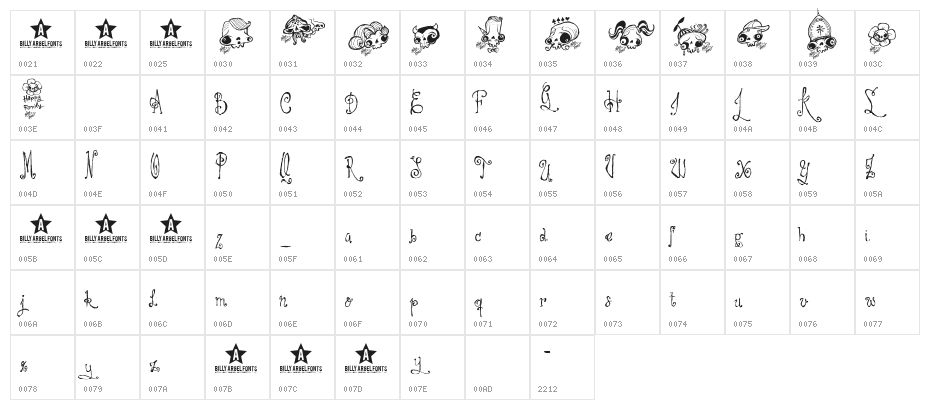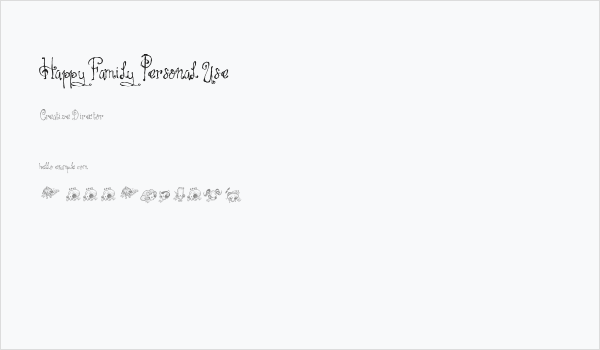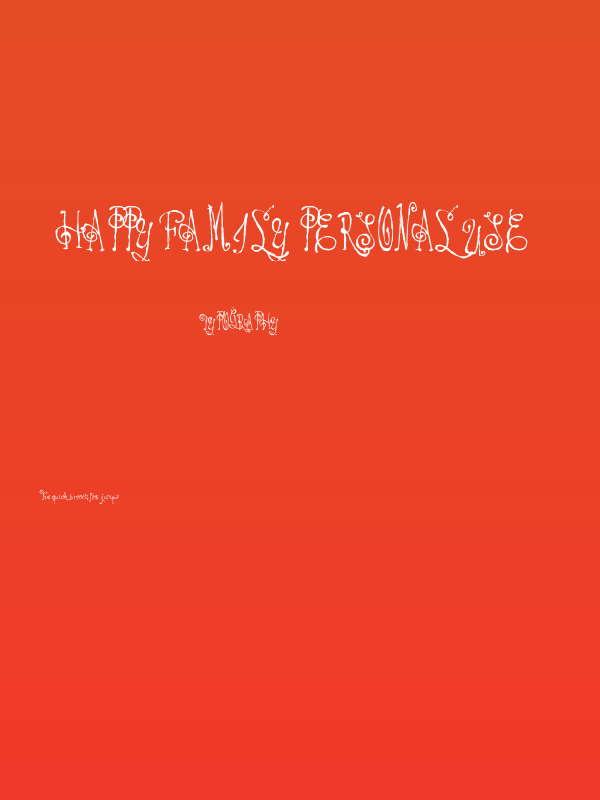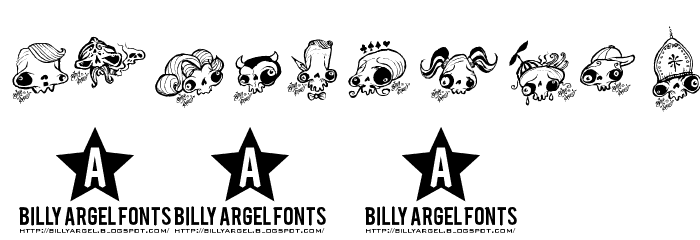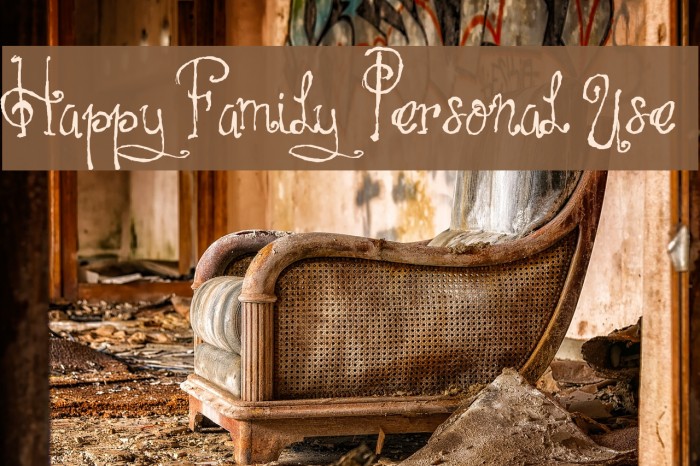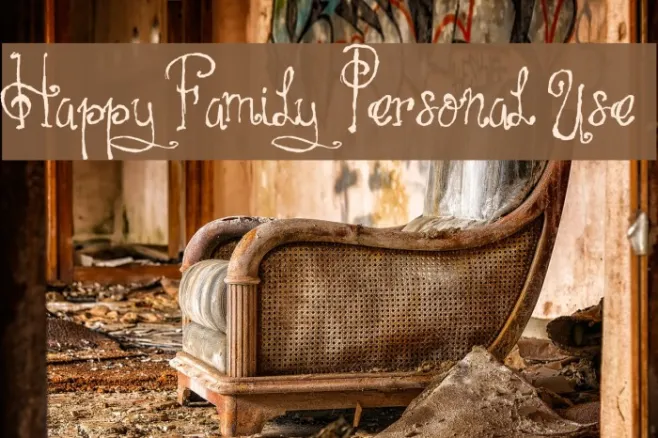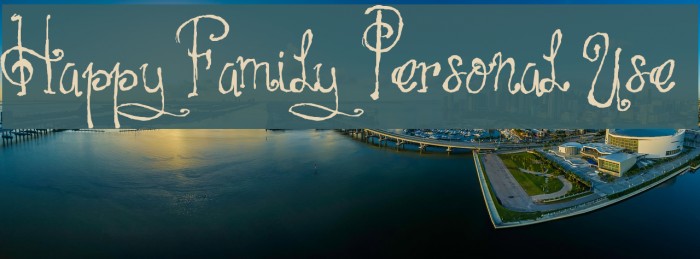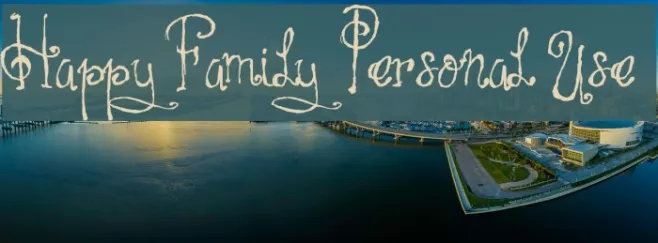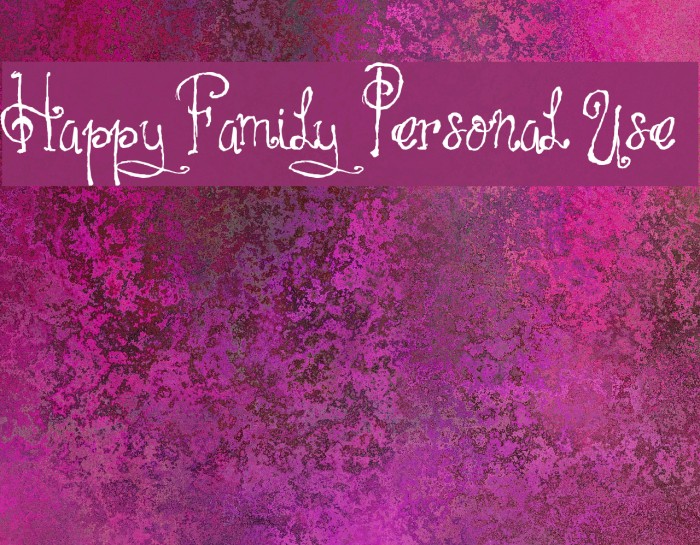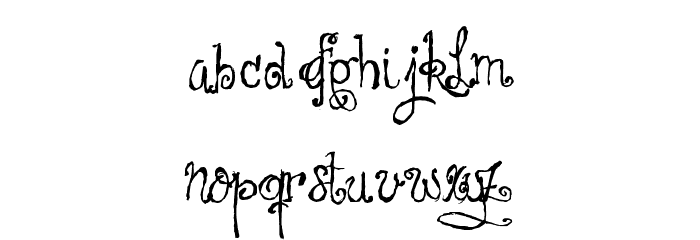
Happy Family Personal Use Font
Happy Family Personal Use Description
This font features a whimsical and decorative style with intricate details and flourishes. The uppercase letters are ornate, with loops and swirls that give them a playful yet sophisticated appearance. The lowercase letters maintain this decorative theme, with unique embellishments that add character to each glyph. The numbers and special characters are equally stylized, fitting seamlessly with the overall design. This font exudes a sense of creativity and artistic flair, making it ideal for projects that require a touch of elegance and individuality.
| Use Case | Logos, Invitations, Artistic Projects |
| Proposed Projects | Ideal for invitations, greeting cards, artistic posters, and branding that requires a unique and creative touch. |